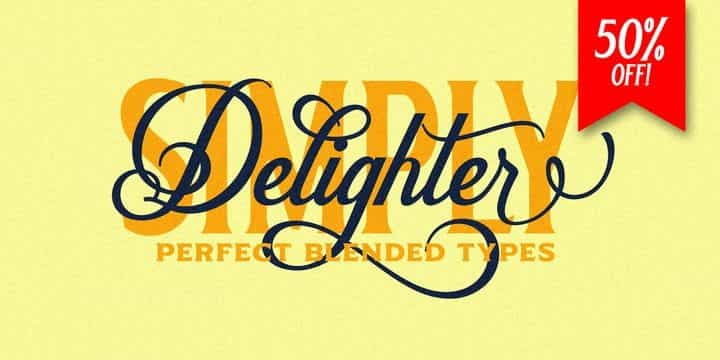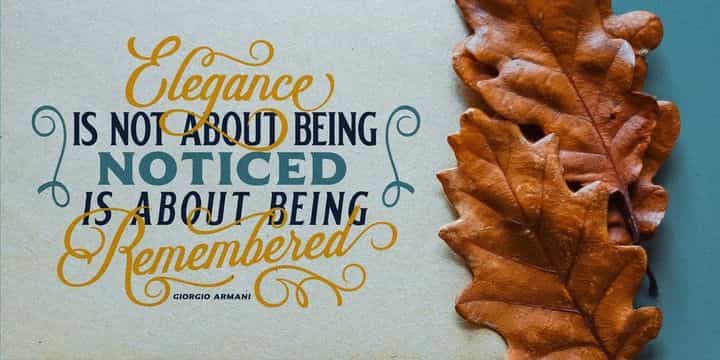
Delighter Script is one of the best font in the category of blended fonts that contains 3 styles. Adding on the 10 fonts and the extras. Delighter is derived from lettering, poster, quotes, logos and brands. It is ideal for advertising, magazines, editorial, poster, branding, logo type, header, titles, packaging, display, etc. It is a great combination for helping your design, just combine and you will get a very genuine look.